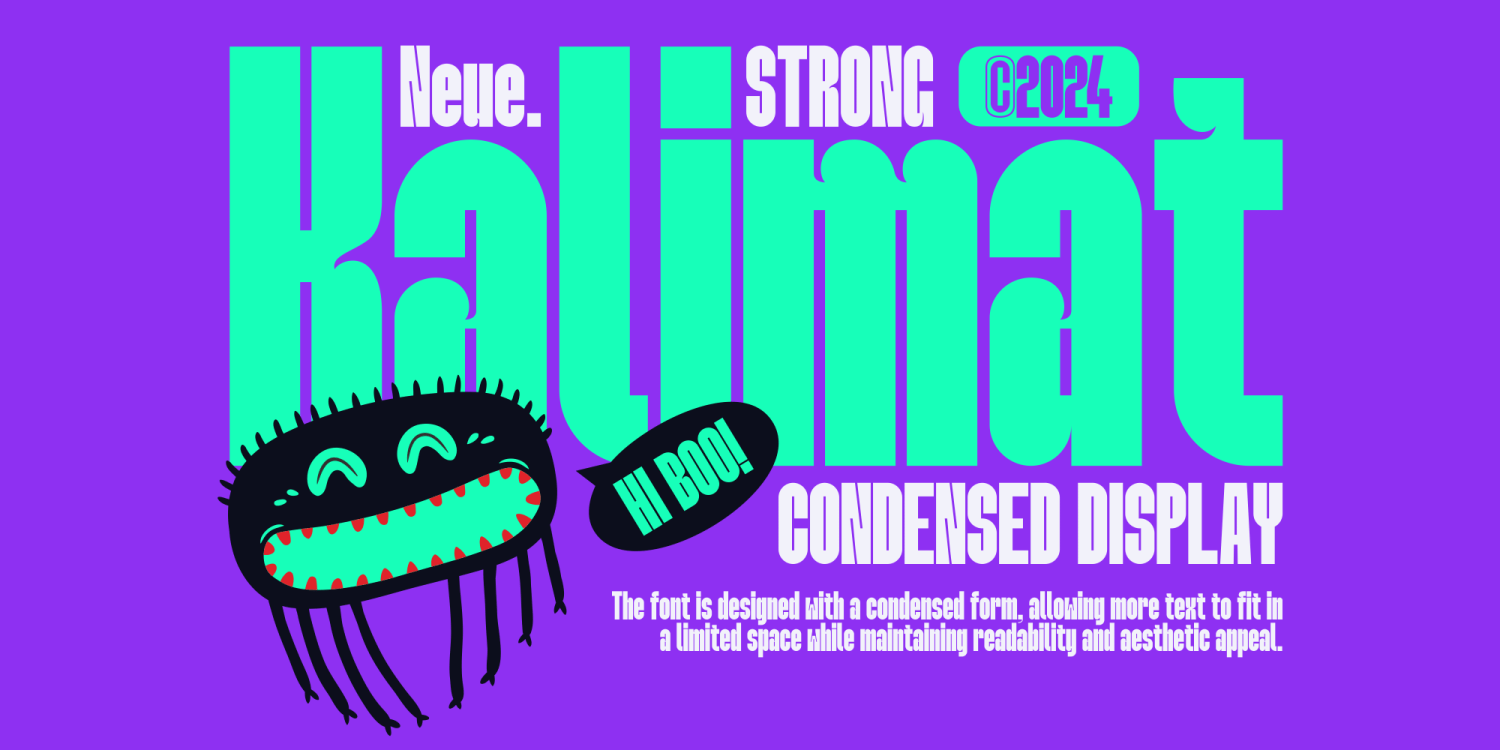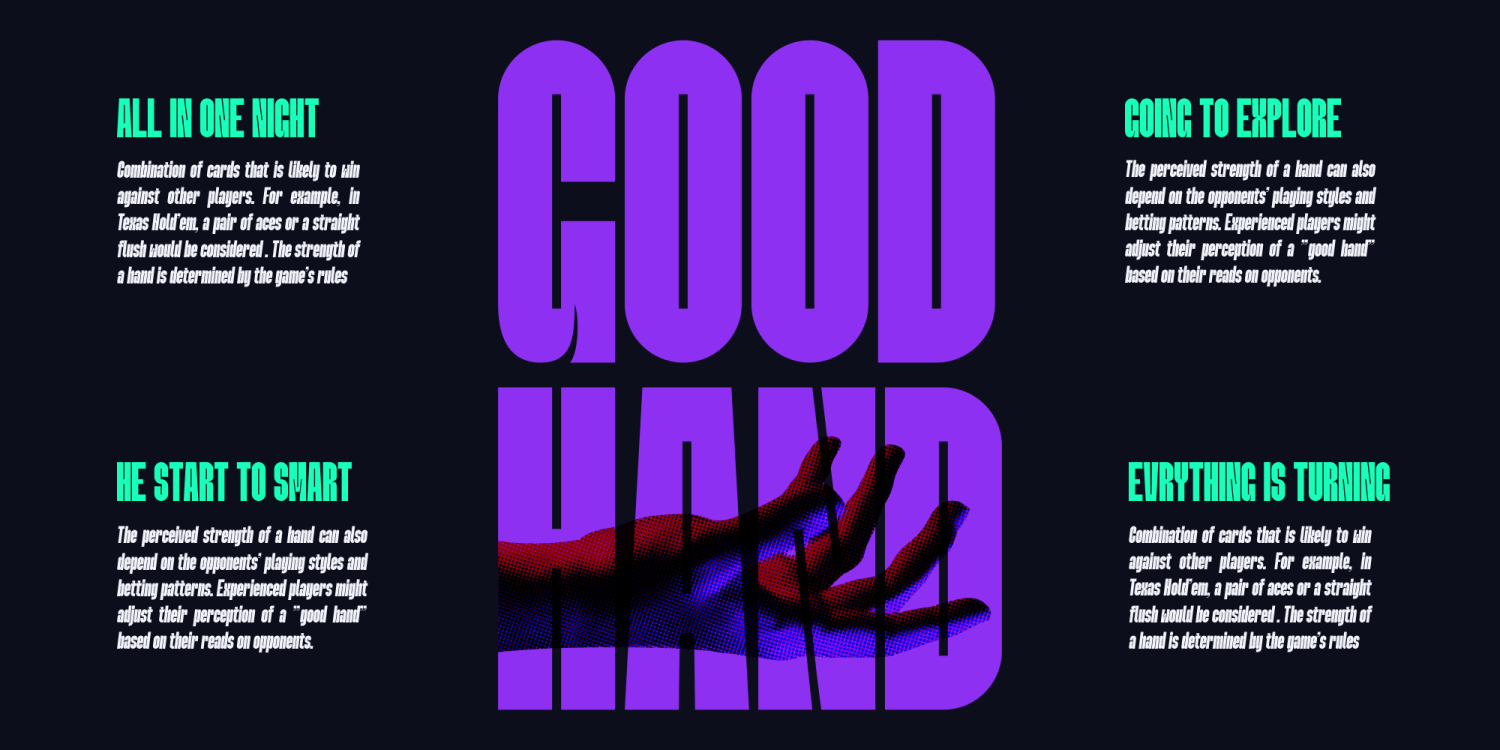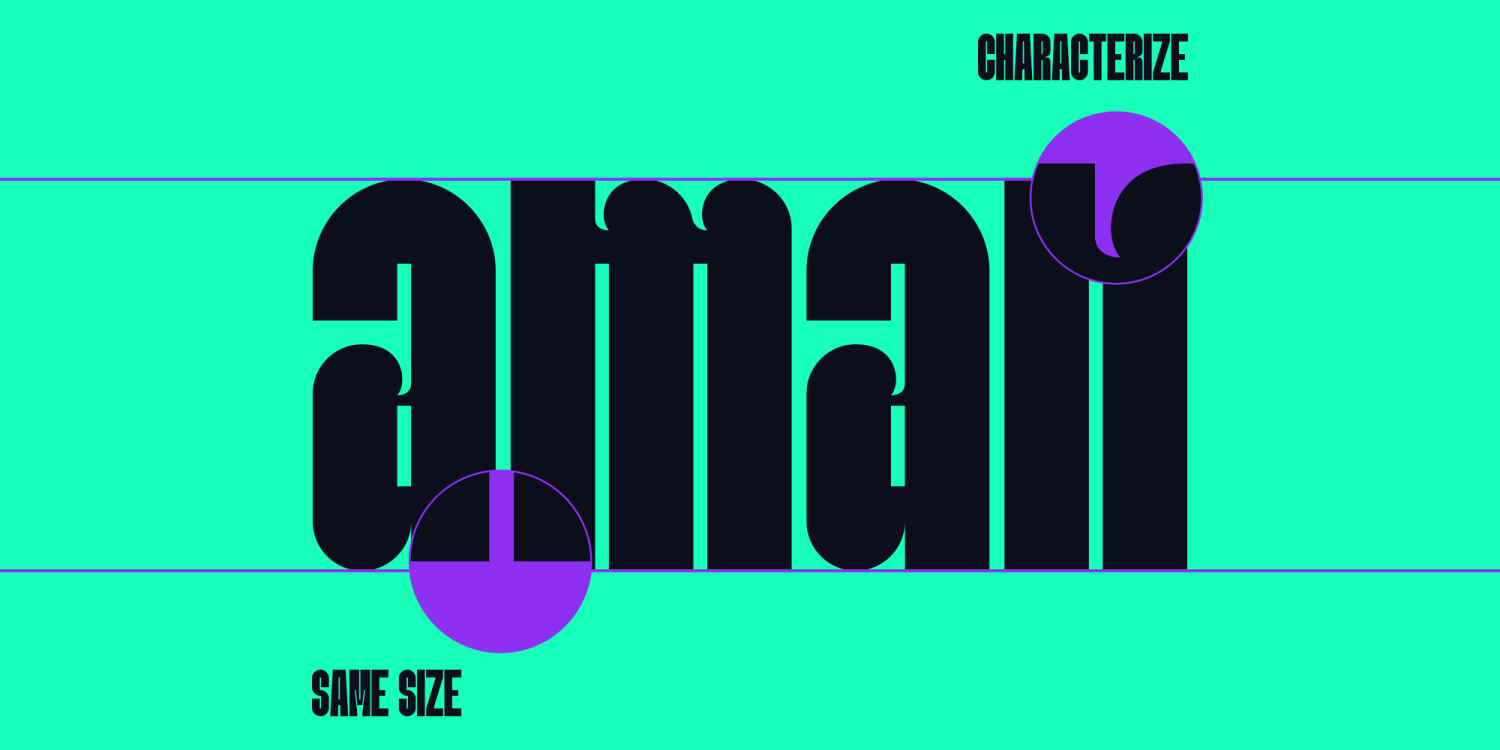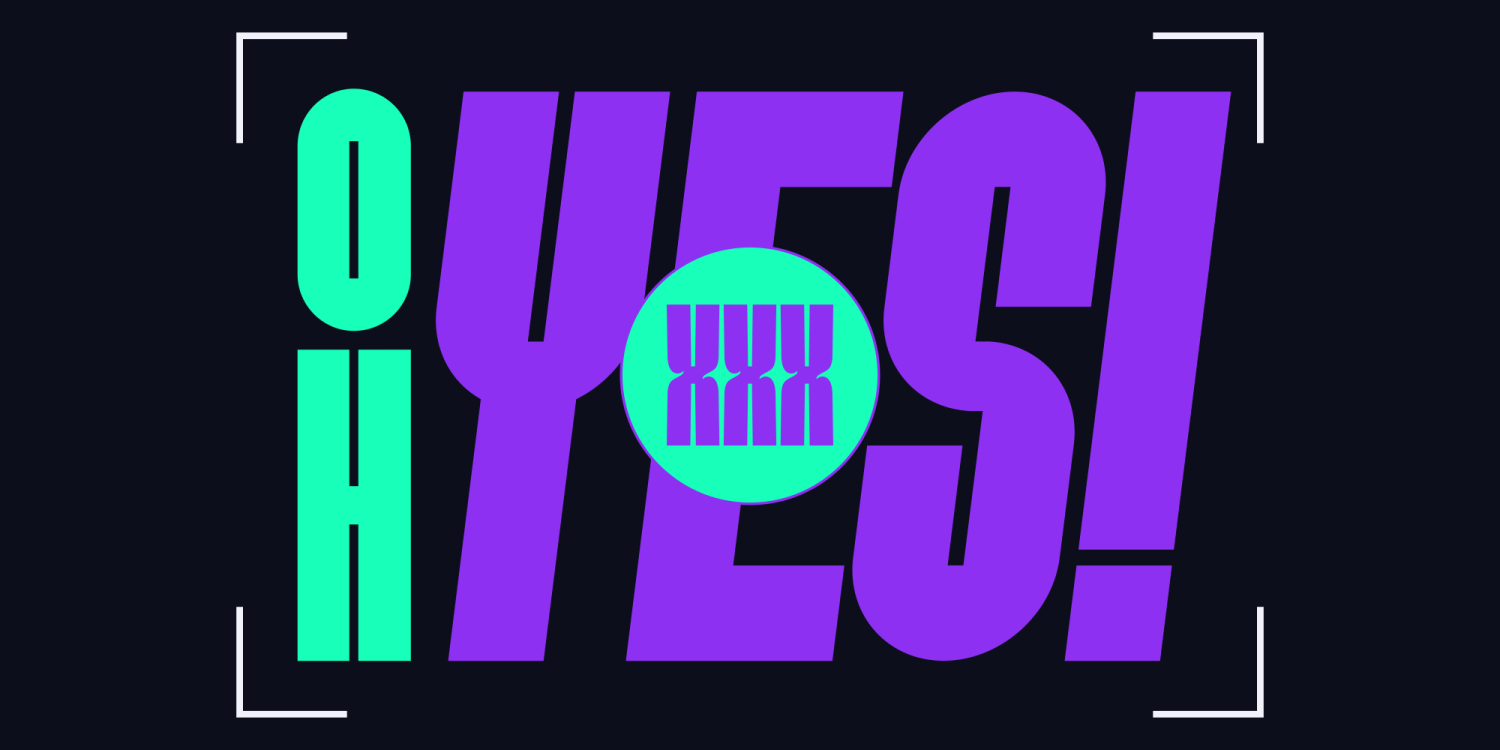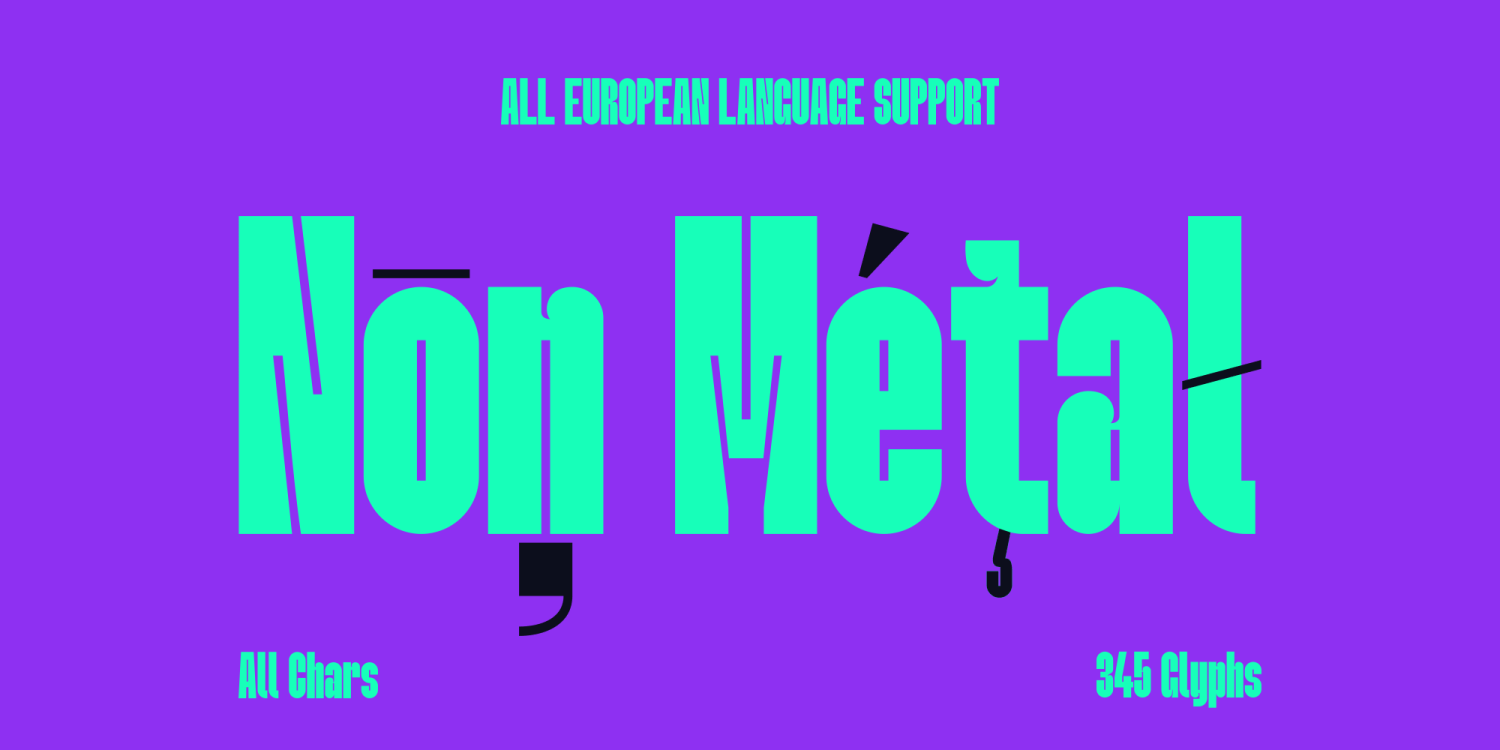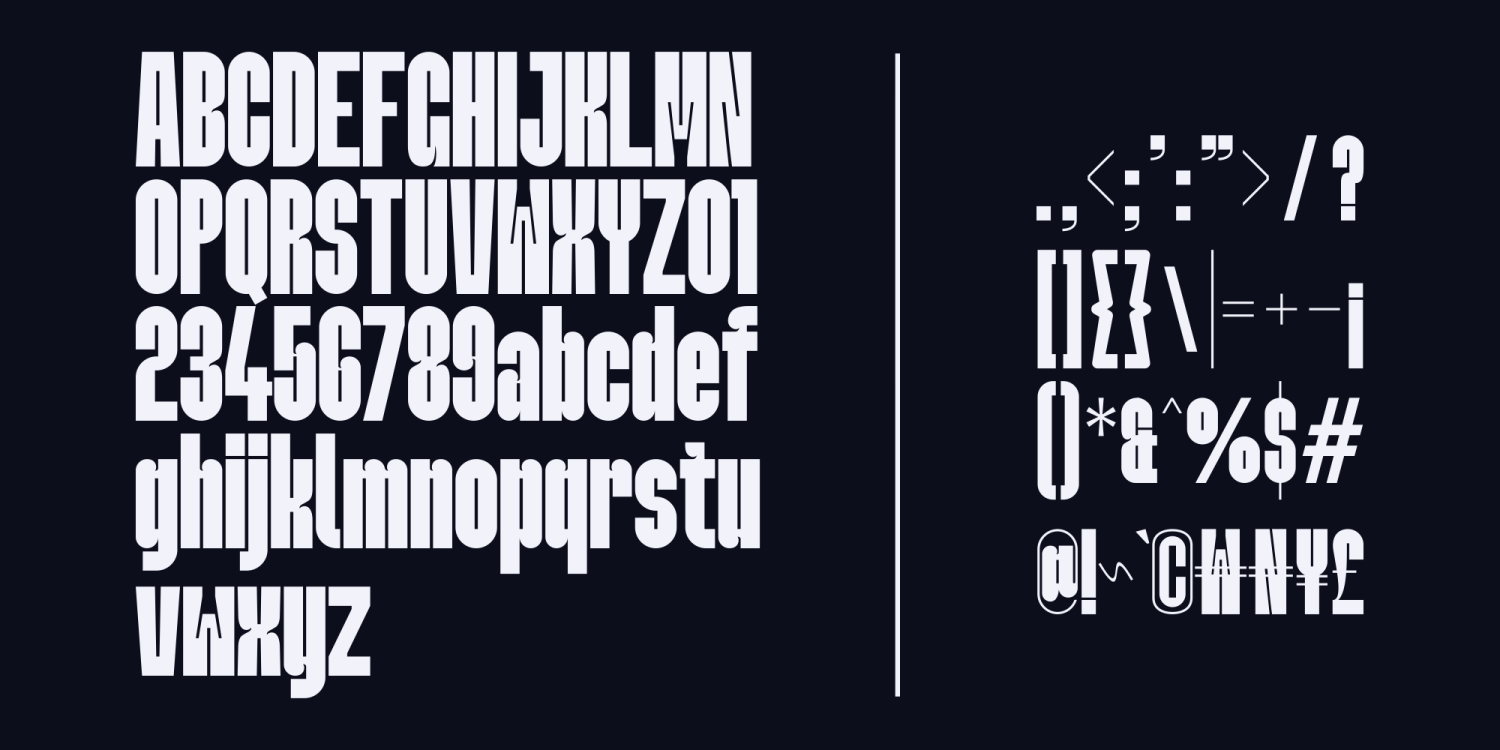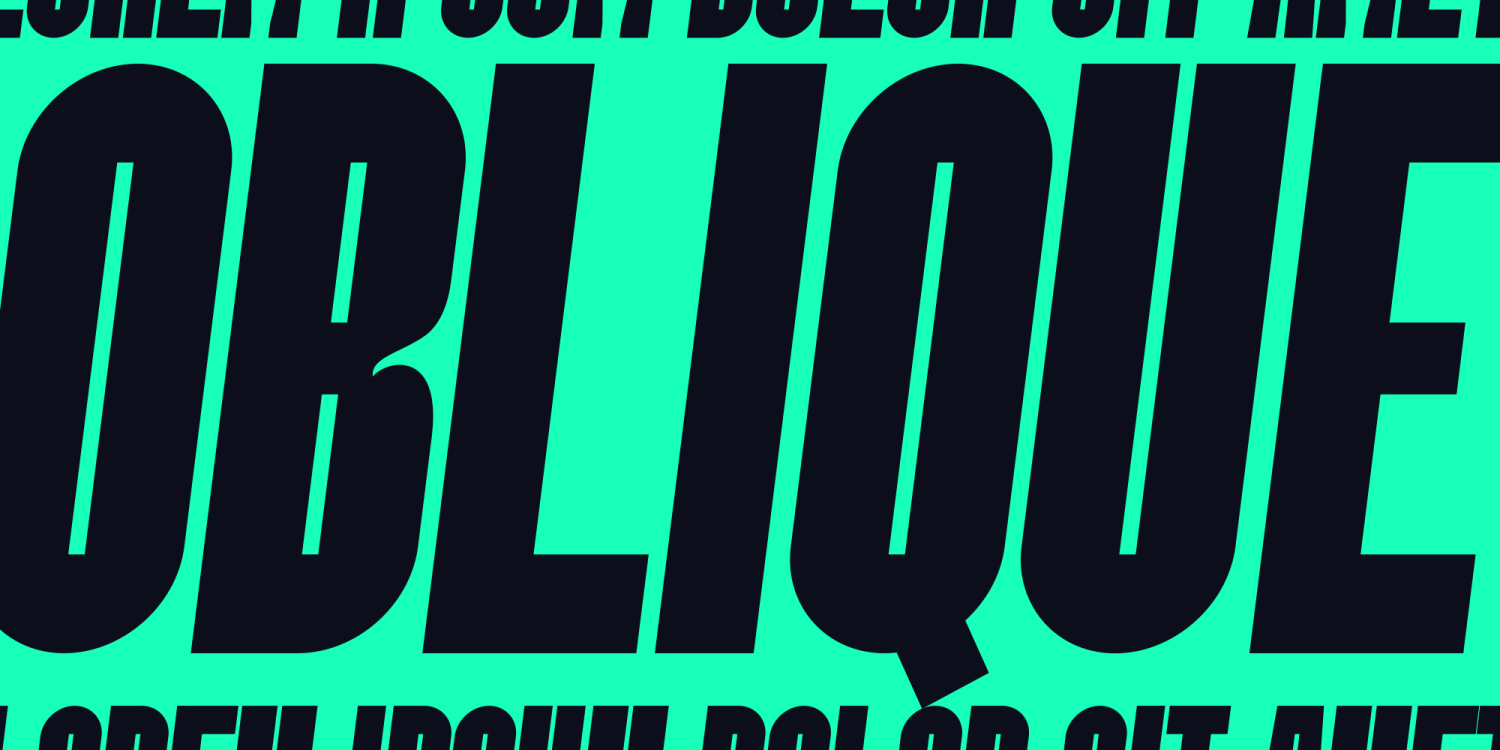
Neue Kalimat
Font Family by Marvadesign
Introducing Neue Kalimat Condensed Display is a modern, sans-serif typeface designed for impactful, high-visibility usage. This font stands out with its unique character detailing, making it an excellent choice for headlines, posters, and other display purposes. The font is designed with a condensed form, allowing more text to fit in a limited space while maintaining readability and aesthetic appeal. Distinctive Strokes One of the defining features of Neue Kalimat Condensed Display is its distinctive strokes present in certain characters. These strokes are especially prominent in some of the lowercase and uppercase letters, adding a unique flair to the typeface. Neue Kalimat Condensed Display is ideal for any design project that requires a strong, modern typographic presence. Its condensed nature makes it perfect for large displays, headings, and titles where space is at a premium but impact is essential. The unique strokes in certain characters provide a distinctive touch that can enhance branding, advertising, and editorial design